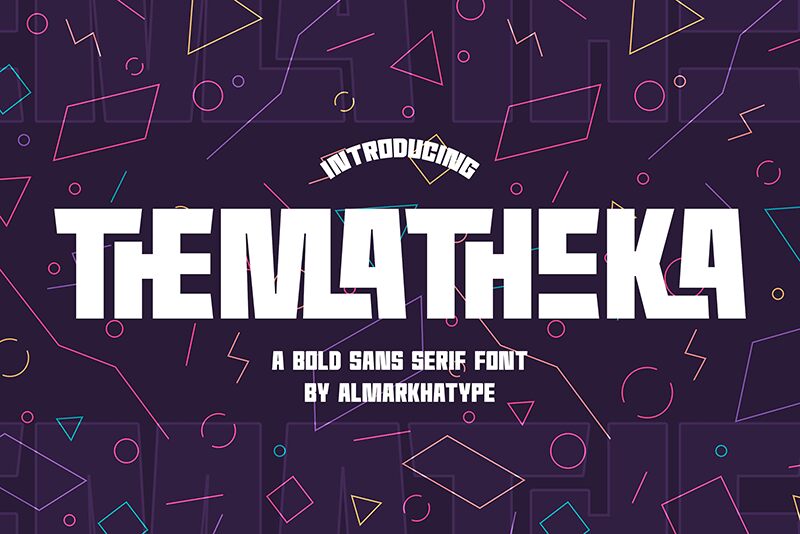
Thematheka
Thematheka emerges as a bold display sans, meticulously crafted by Almarkhatype to infuse your creative projects with its distinctive techno flair. With 29 ligatures drawing inspiration from iconic technology logos and brands, this semi-light, semi-condensed font is engineered to stand out. Thematheka's strong and challenging nuances make it an impeccable choice for titles, typography, and posters.
This font's versatility extends to a broad spectrum of applications—from packaging and branding to magazines and websites—ensuring that your design not only captures attention but also exudes modernity and professionalism. Embrace the transformative power of Thematheka in your next project and watch as it elevates your visual communication to new heights.